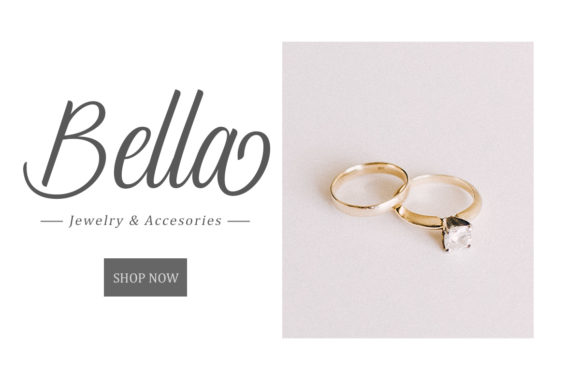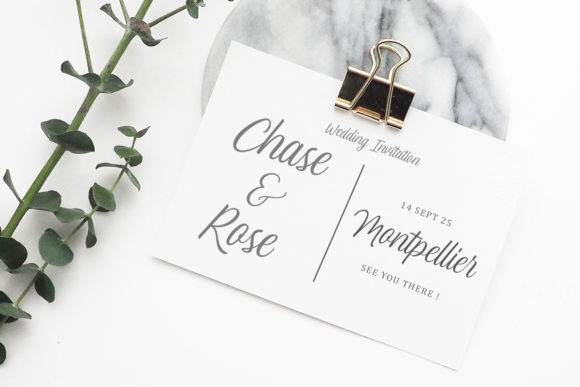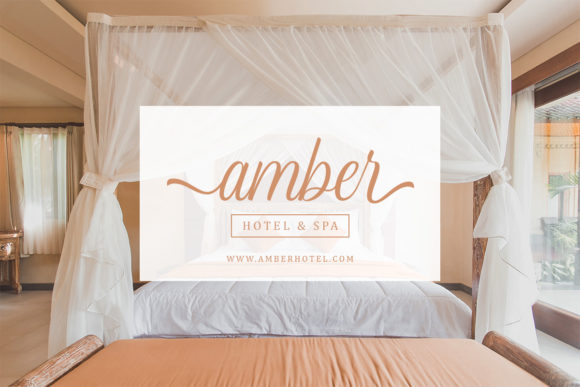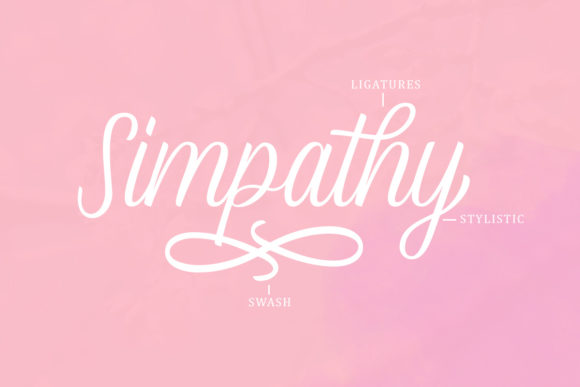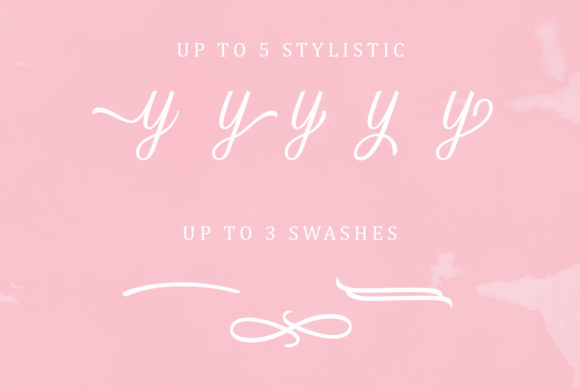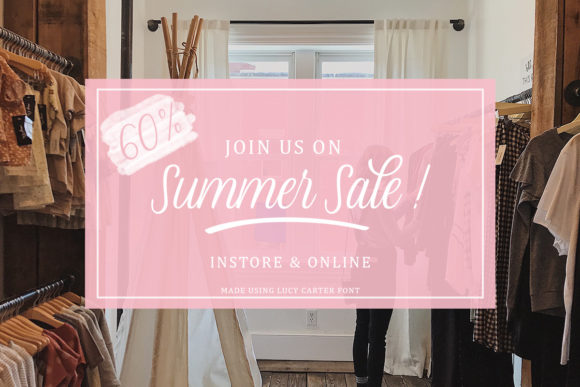
Introduction to Lucy Carter Script Font
As you’re pouring over your latest design project, something’s missing – a touch of elegance, a dash of whimsy. You’re searching for the perfect font to elevate your work, but nothing seems to capture the essence of your creative vision. That’s where the Lucy Carter Script Font comes in – a light and airy handwritten font that’s sure to fall in love with your design project.
With its undeniably lovely charm, the Lucy Carter Script Font is the perfect addition to any design resource. Whether you’re working on a free download or a high-quality commercial project, this font is sure to bring a level of sophistication and authenticity that will set your work apart from the rest. And the best part? It’s available for download, complete with a transparent background that makes it easy to integrate into your design.
As a designer, you know how valuable it is to have access to high-quality design resources like the Lucy Carter Script Font. Not only does it save you time and effort, but it also helps you create work that truly stands out from the crowd. So why settle for anything less when you can have a font that’s as lovely as it is functional?
Key Features of Lucy Carter Script Font
- Unique, elegant script design perfect for creative projects requiring a touch of sophistication.
- Designed to be highly legible, even at small font sizes, making it suitable for a wide range of design applications.
Honest Review: Lucy Carter Script Font
As a designer, I’m always on the lookout for high-quality design resources that can elevate my creative projects. Recently, I stumbled upon the Lucy Carter Script Font, and I’m excited to share my honest review with you.
First impressions: the Lucy Carter Script Font is absolutely stunning! The elegant, cursive design is perfect for adding a touch of sophistication to any project. ✨
- Elegant, cursive design
- Only available in a single weight (not ideal for complex typography)
- May not be suitable for bold, headline text
Overall, I’m really impressed with the Lucy Carter Script Font. It’s a great design resource for any project that requires a touch of elegance. Just be aware of the limitations, and you’ll be golden!
How to Use Lucy Carter Script Font
The Lucy Carter Script Font is a high-quality, elegant script font perfect for various creative projects. It’s available for free download and features a transparent background, making it ideal for design and digital art applications.
Getting the Most Out of Lucy Carter Script Font
For the best results, use the Lucy Carter Script Font in conjunction with high-quality images and graphics. Experiment with different font sizes, colors, and styles to create visually appealing designs.
The Lucy Carter Script Font is perfect for various creative projects, including:
– Wedding invitations and stationery
– Birthday and anniversary cards
– Social media graphics and posts
– Branding and marketing materials